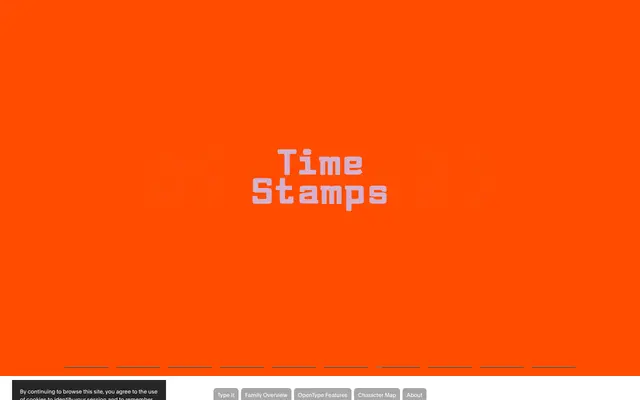
CEO
Optimo · François Rappo
François Rappo's monospace built on a near-rectangular module, drawn from the 1960s Olympia typewriter's Senatorial #71.
A monospaced typeface by François Rappo that captures the modernist fancy of the late mechanical typewriter era. Based on a nearly rectangular module, CEO retains the authoritative, systematic feel of its source while smoothing the curves into something more organic, with rounded stems and terminals and a careful eye on punctuation and special characters. Four weights from Light to Black with matching italics give editorial systems a typewriter voice that works in long blocks as well as quoted passages.
Optimo describes CEO as a monospaced typeface based on an almost rectangular module, capturing the modernist character of the 1960s Olympia mechanical typewriter and its Senatorial #71 typeface.